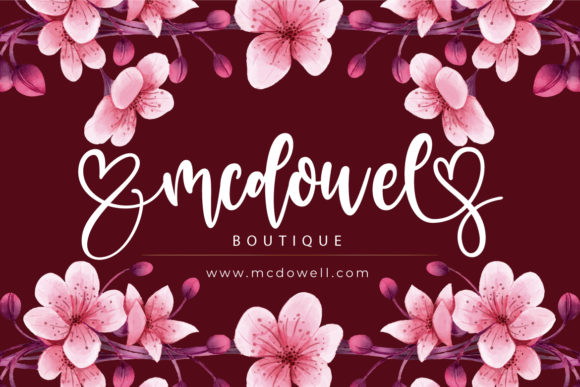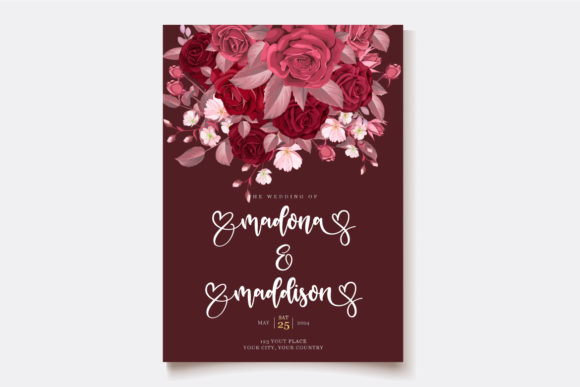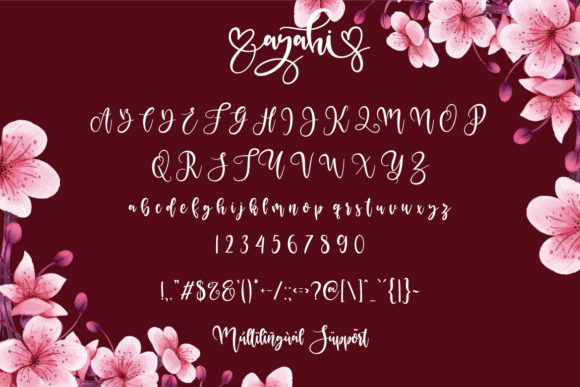
The Perfect Touch of Elegance: Discovering Ayahi Font
As I sat at my desk, staring blankly at my computer screen, I knew I needed something to spark my creativity. I began to browse through my font collection, searching for the perfect match for my latest design project. It was then that I stumbled upon Ayahi Font – a delicate, elegant, and flowing handwritten font that immediately caught my eye.
Ayahi Font is a beautifully crafted typeface, designed to add a touch of sophistication and refinement to any design. With its well-balanced characters and flowing lines, it’s no wonder why this font has become a favorite among designers. Whether you’re working on a wedding invitation, a branding project, or a simple blog post, Ayahi Font is sure to bring a sense of elegance and finesse to your design.
What sets Ayahi Font apart is its PUA encoding, which allows you to access all of the glyphs and swashes with ease. This makes it incredibly valuable for designers, who can now add a level of customization and personality to their work without the hassle of complicated font management.
Ayahi Font Key Features
- Font Style: A unique, elegant script font with a mix of modern and traditional elements.
- Character Set: Includes a wide range of characters, including Latin, Cyrillic, and Greek alphabets, as well as punctuation marks and symbols.
- Unique Characteristics: Features a distinctive, flowing design with subtle flourishes and ornaments, making it ideal for creative and artistic applications.
Ayahi Font Review
I recently had the chance to work with the Ayahi font, and overall, I’m impressed. ✨ The font’s unique blend of modern and traditional elements gives it a distinct character that can elevate any design project.
- ✨ Elegant and refined aesthetic: Ayahi’s intricate details and subtle flair make it perfect for luxury brands, high-end fashion, or fine dining.
- ✨ Versatility: From body text to headlines, Ayahi adapts well to various font sizes and styles, ensuring consistency throughout your design.
- ✨ Beautiful typography: The font’s carefully crafted letterforms and subtle connections create a visually appealing experience.
- ⚠️ Limited font weights: Ayahi’s selection of font weights is somewhat limited, which may not be ideal for projects requiring a wide range of styles.
- ⚠️ Not ideal for sans-serif projects: Ayahi’s organic feel may clash with the clean, modern aesthetic of sans-serif designs.
Ayahi is a beautiful, high-end font that shines in specific design contexts. While it may not be suitable for every project, its unique character and elegant aesthetic make it a valuable addition to any designer’s toolkit.
Getting the Most Out of Ayahi Font
For the best results, use Ayahi Font in conjunction with other elegant and minimalist design elements. Experiment with different font sizes, colors, and styles to create a unique and eye-catching look.
Ayahi Font is ideal for designing:
– Branding materials, such as logos and business cards
– Elegant brochures and flyers
– Minimalist websites and digital platforms